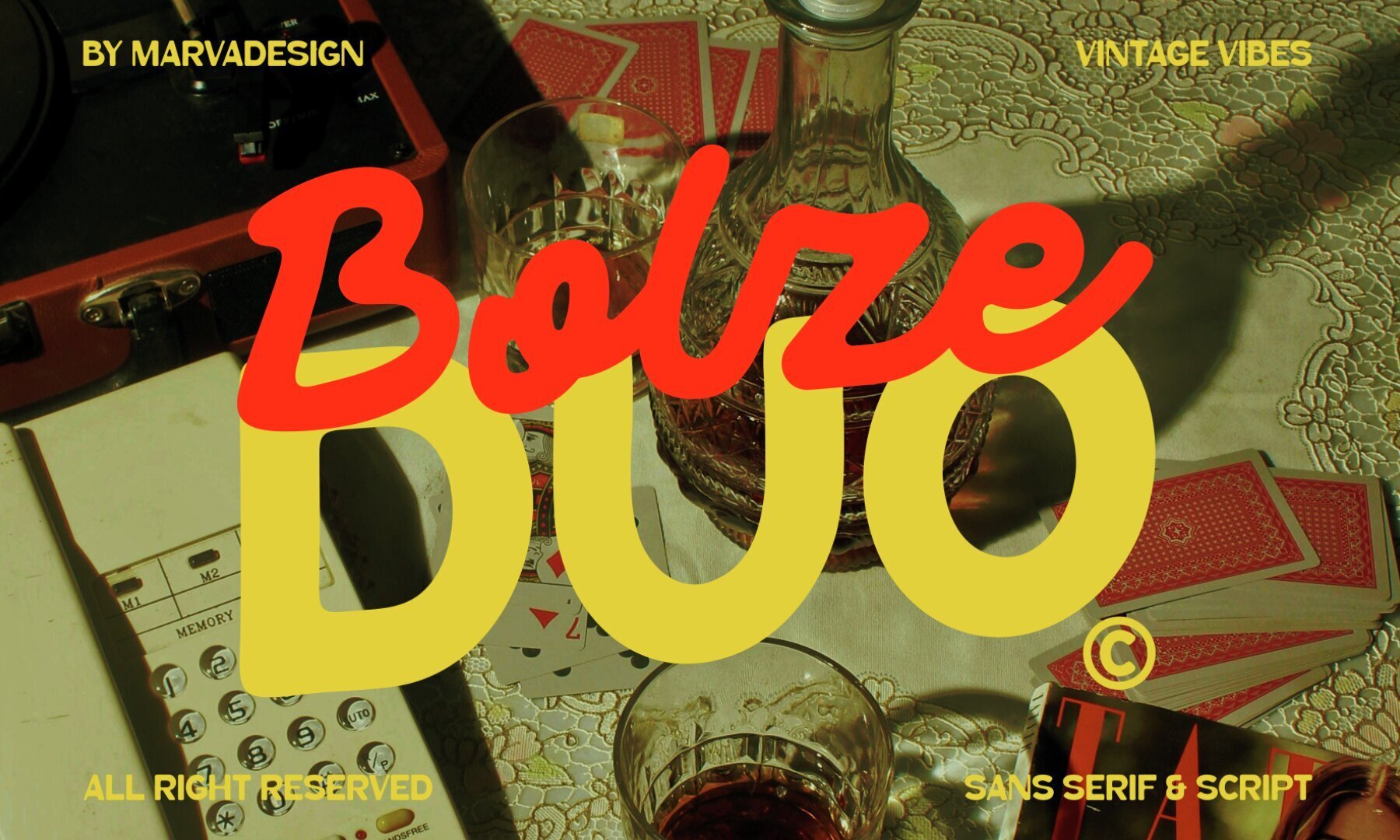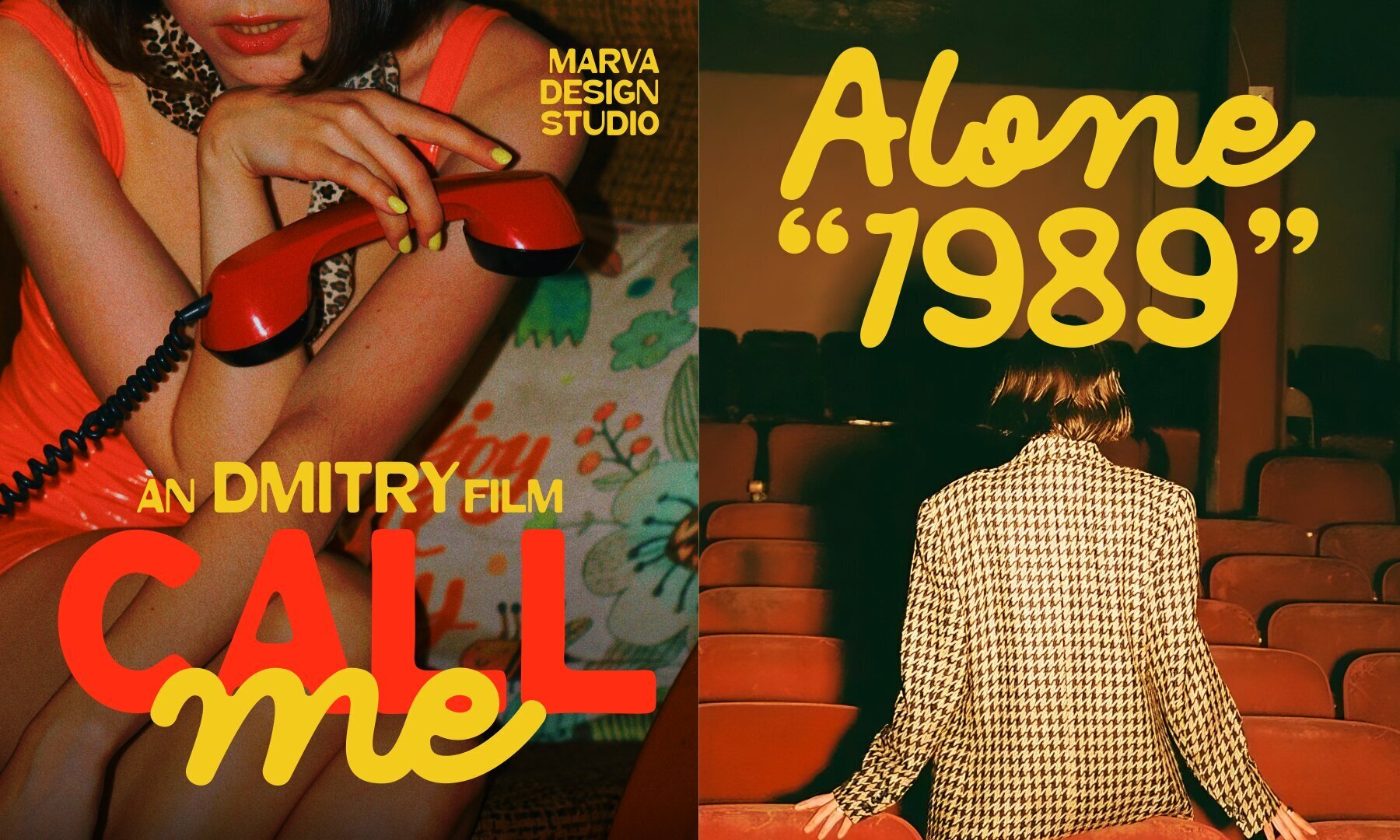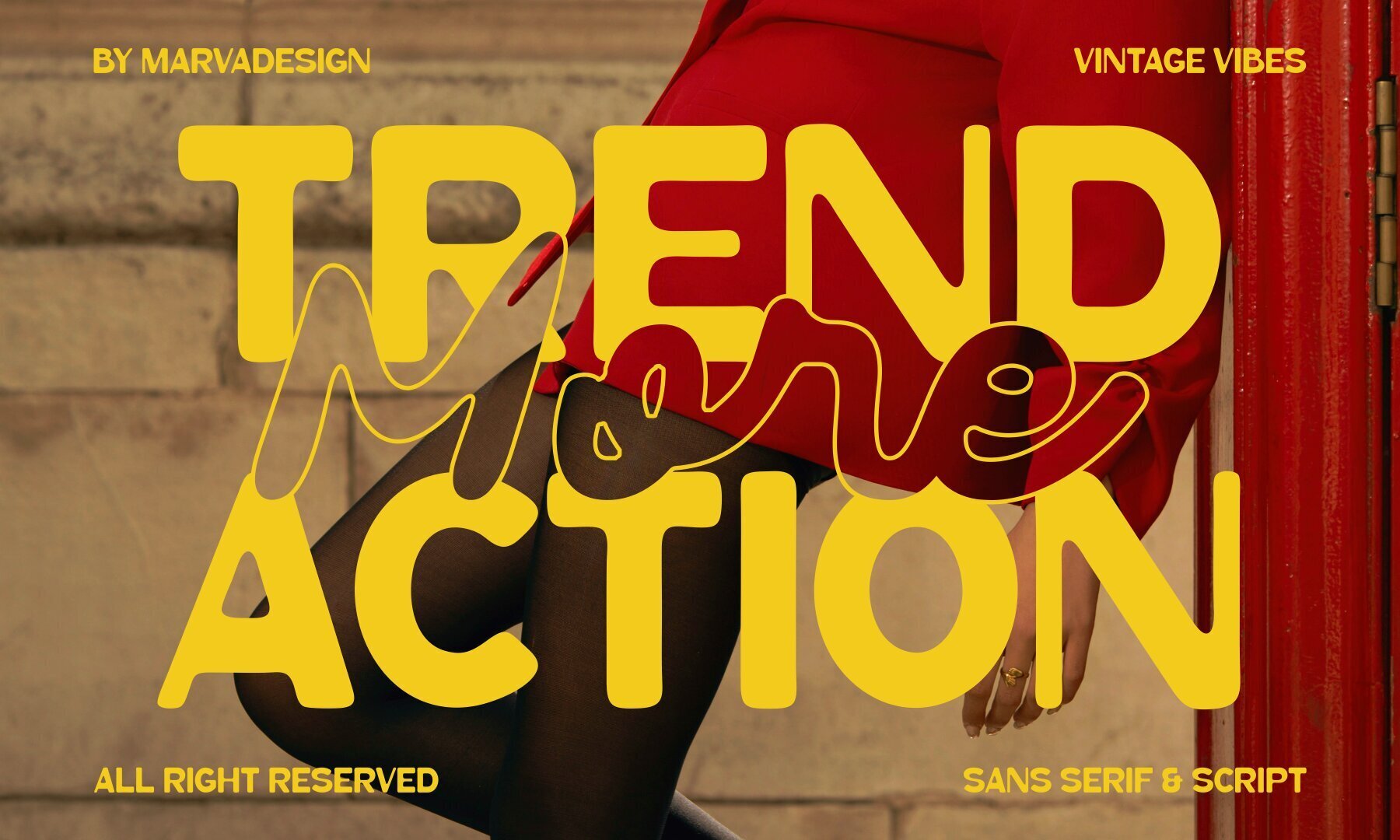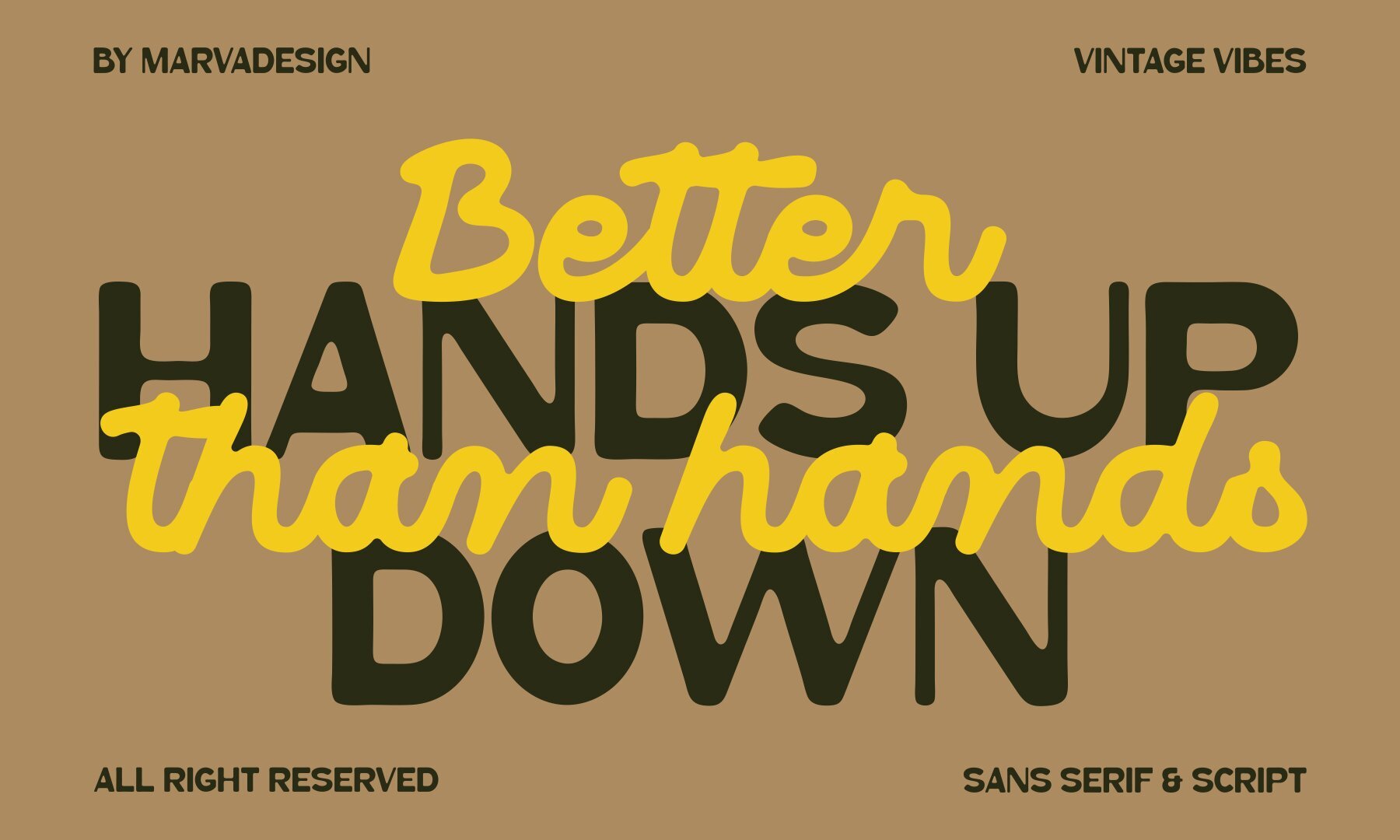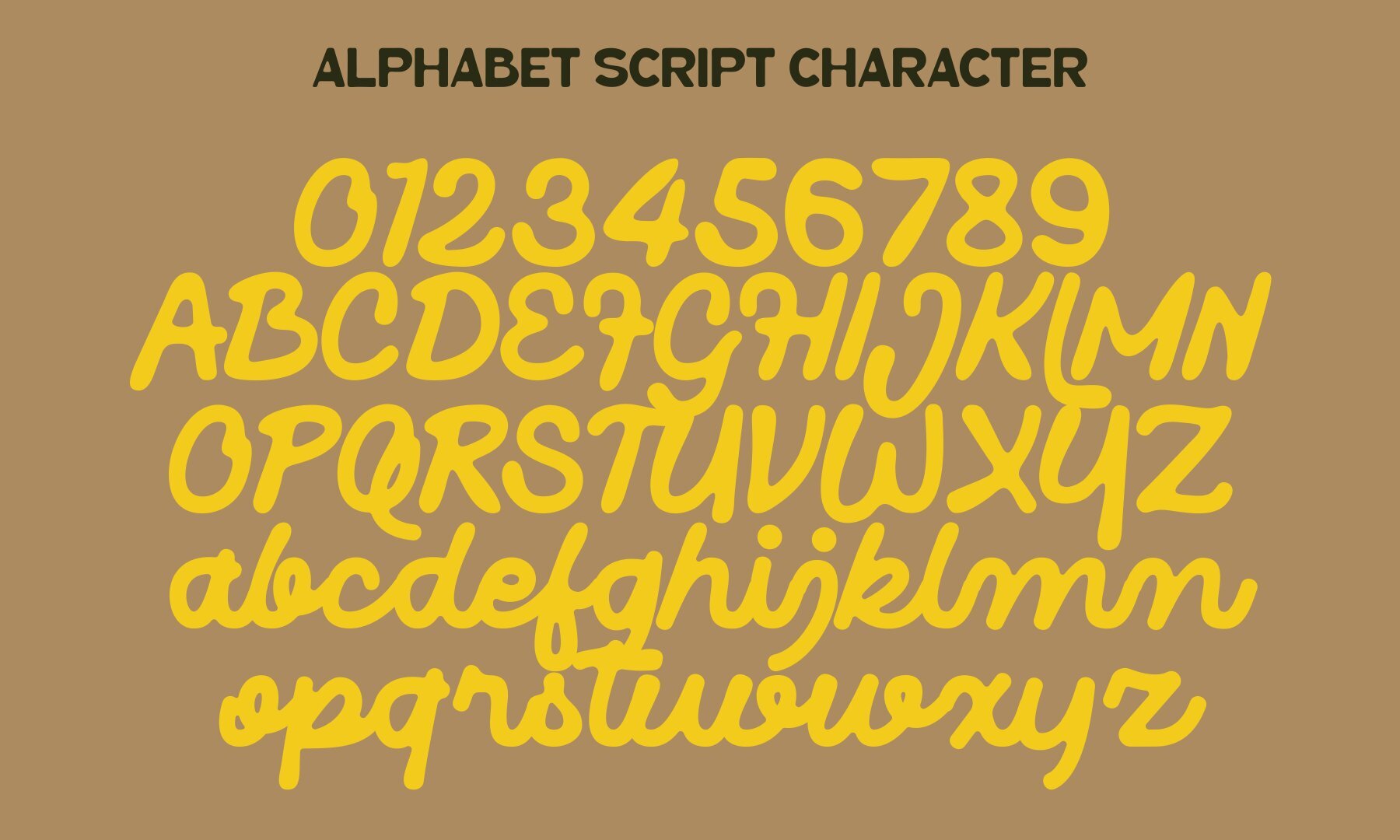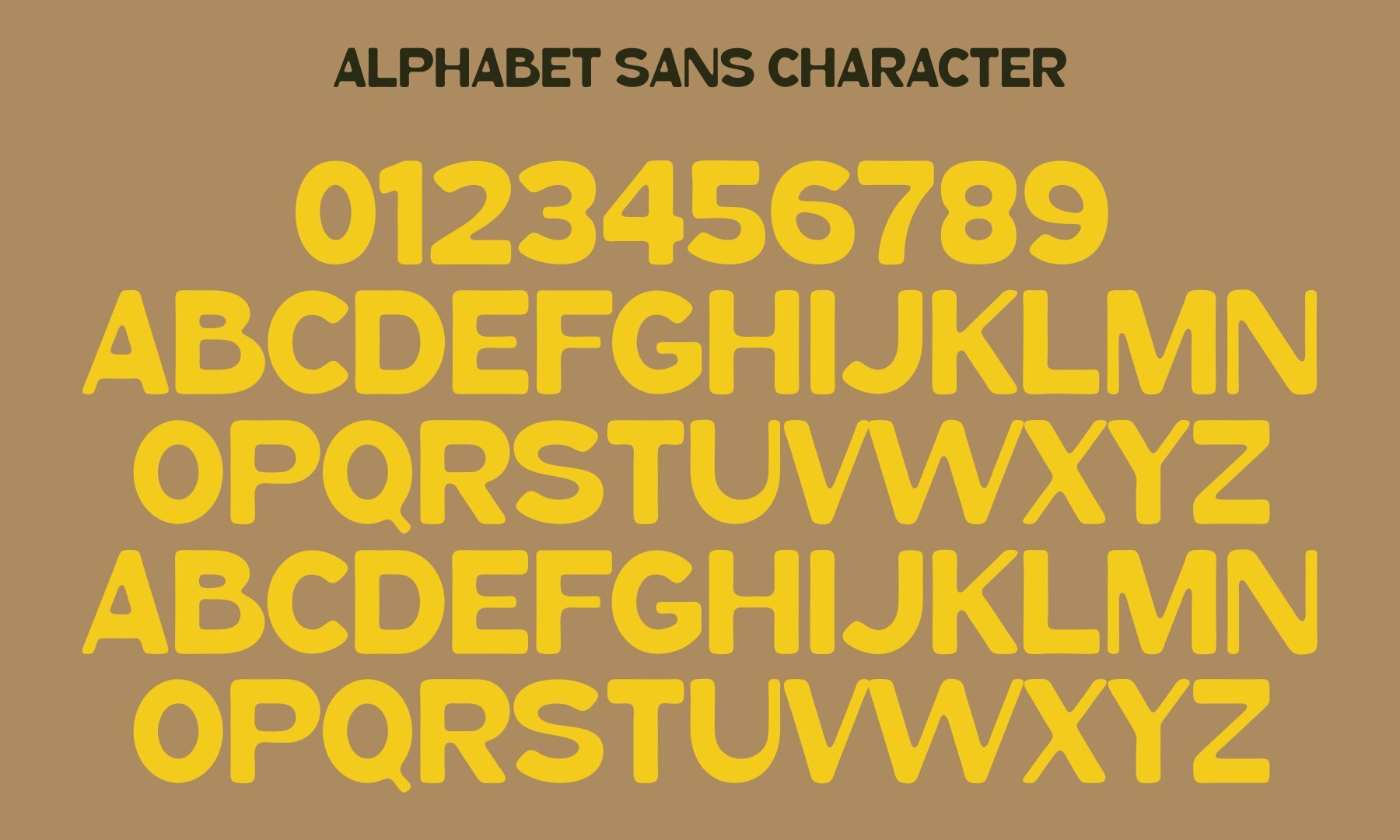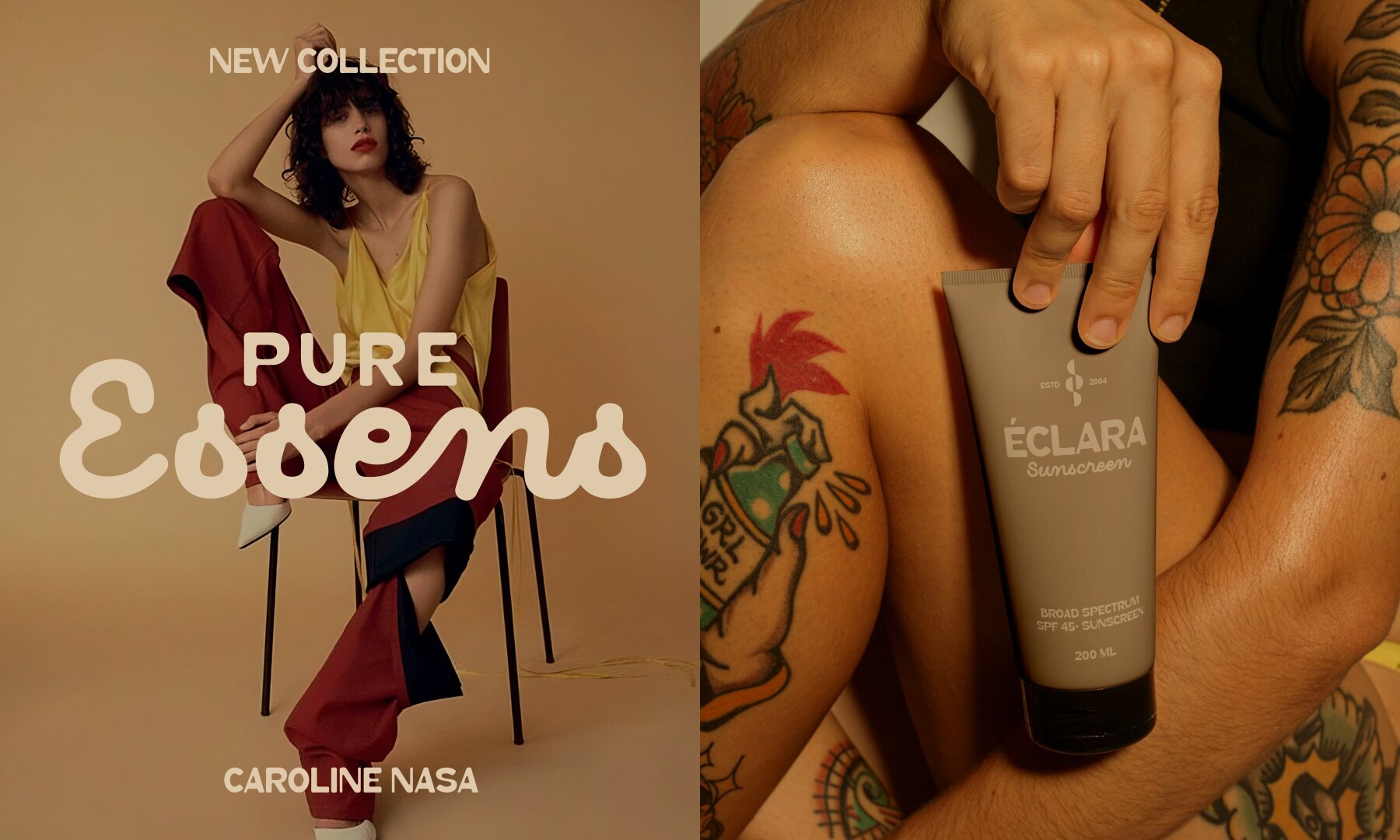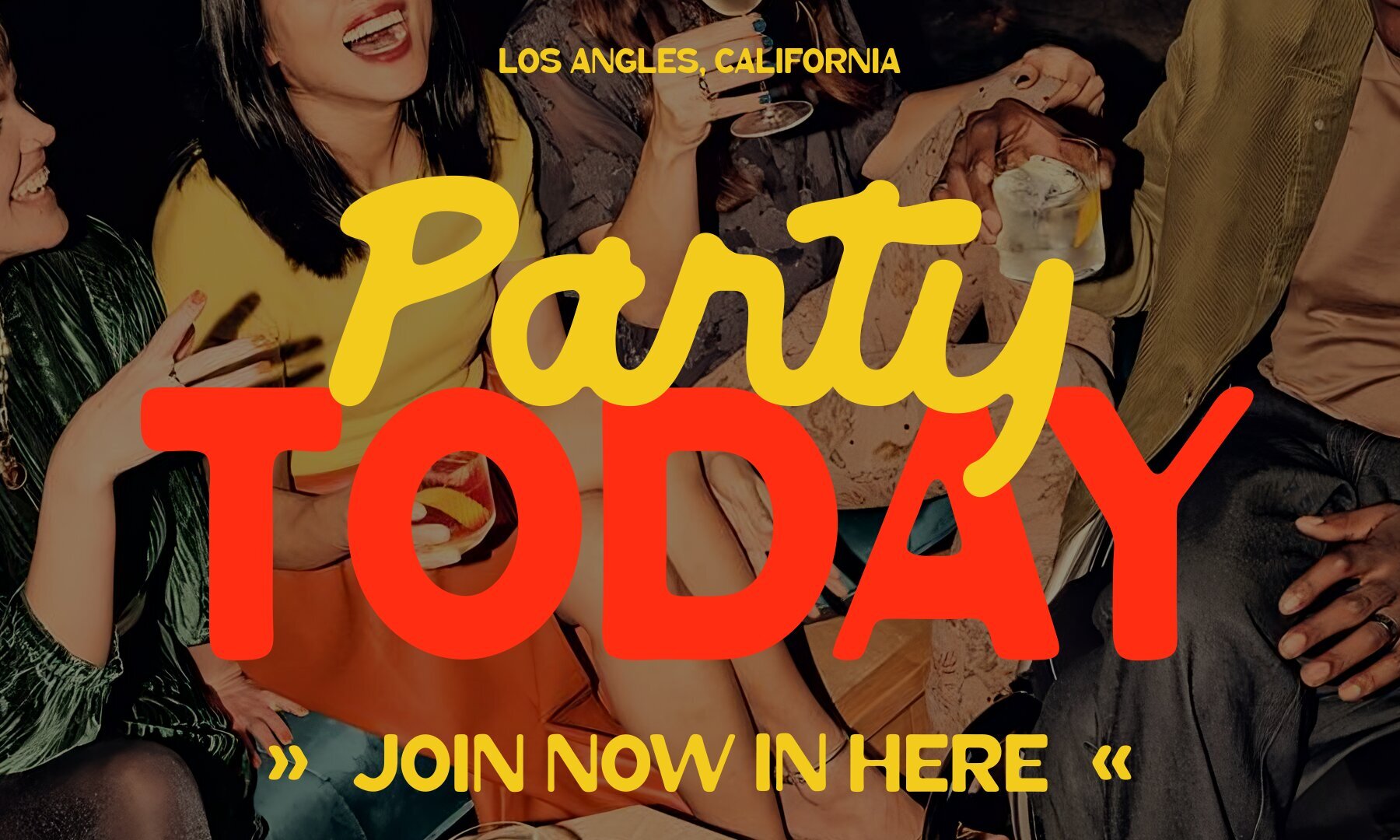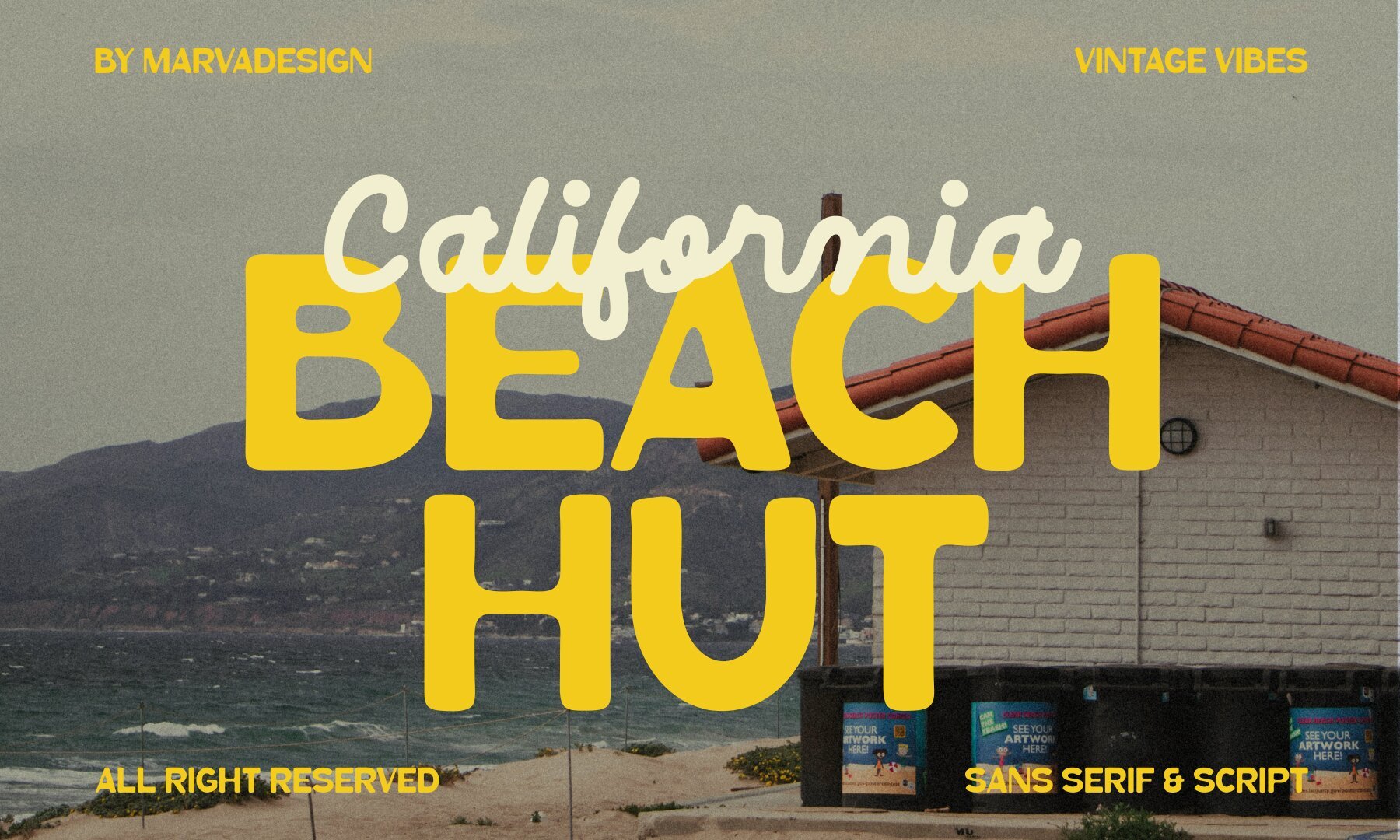
Bolze Font
Bolze offers a lively blend of Sans Serif and Script, ideal for graphic designers seeking a versatile solution for retro branding and lifestyle projects. The Sans Serif variant projects a strong, approachable presence with rounded lines, while the Script brings a sense of fluidity through its handwritten, dynamic forms. Together, these styles support both impactful headlines and distinctive accents across logos, packaging, posters, and digital media titles.Bolze: Expressive Font Duo With Vintage Energy